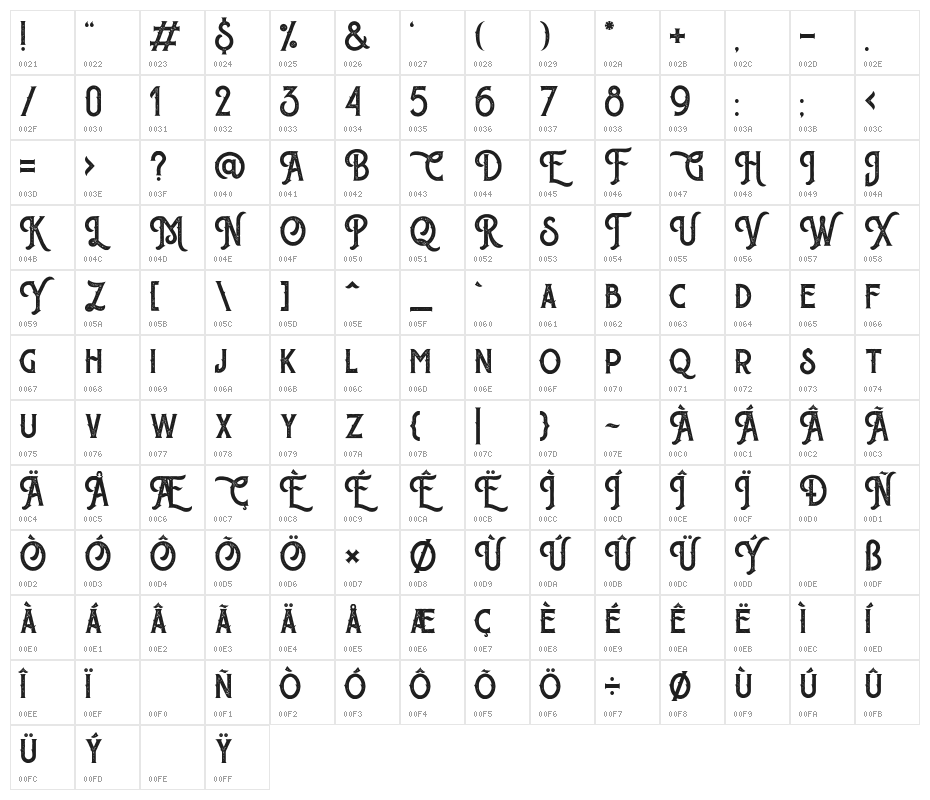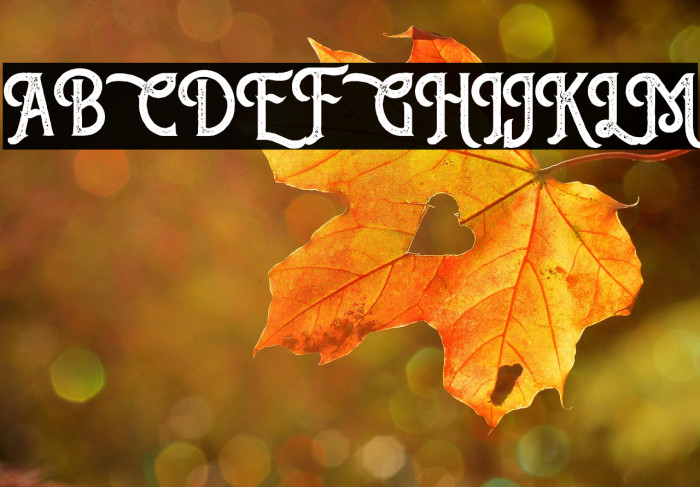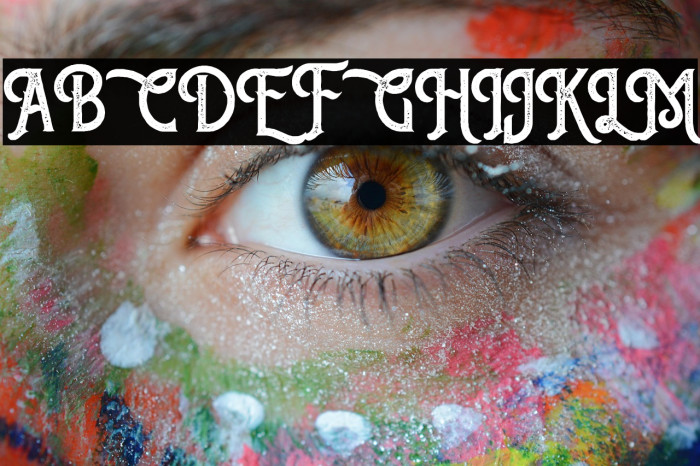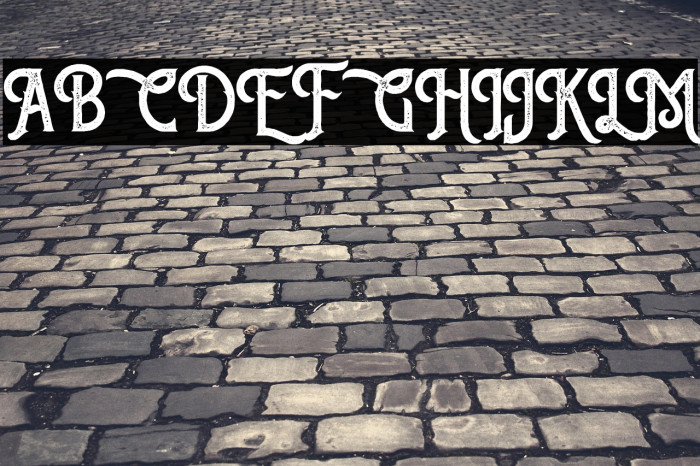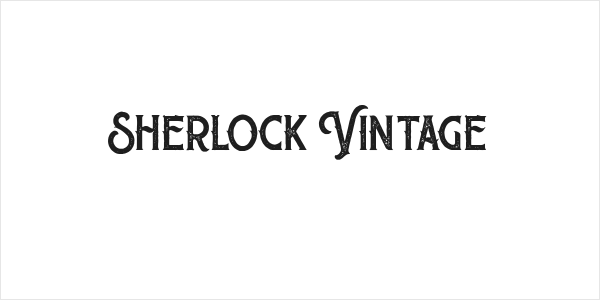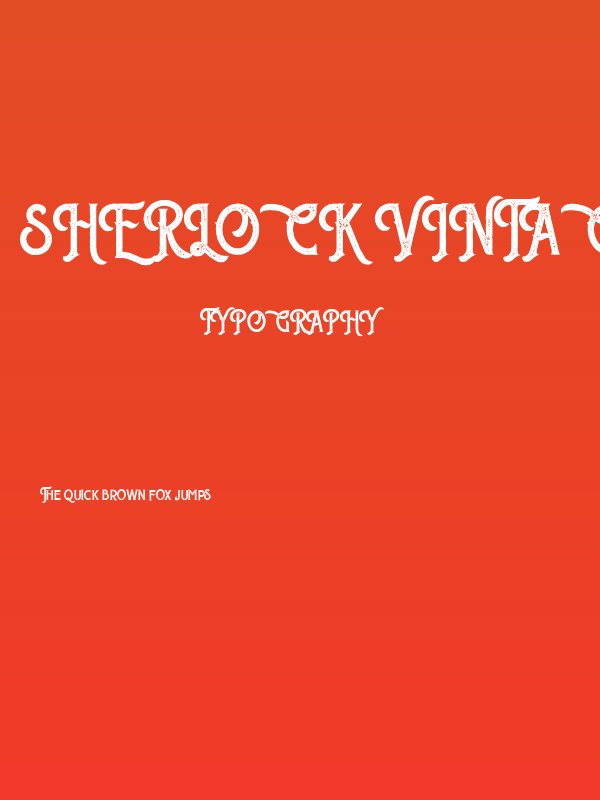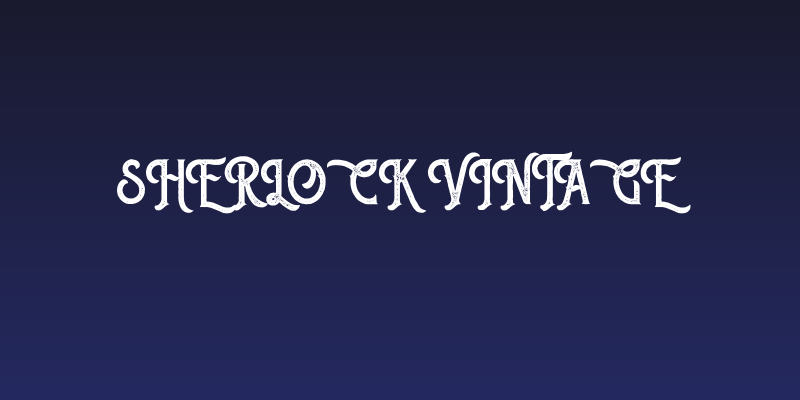
Sherlock Vintage Font
Sherlock Vintage Description
This font features a vintage, distressed style with ornate, decorative elements. The uppercase letters are characterized by their bold, elaborate serifs and intricate detailing, giving them an antique appearance. The lowercase letters maintain the same decorative style, with consistent stroke widths and a slightly condensed form. Numbers and special characters follow the same aesthetic, ensuring a cohesive look across all glyphs. The texture of the font adds a worn, historical feel, making it ideal for projects that require a touch of nostalgia or a retro vibe.